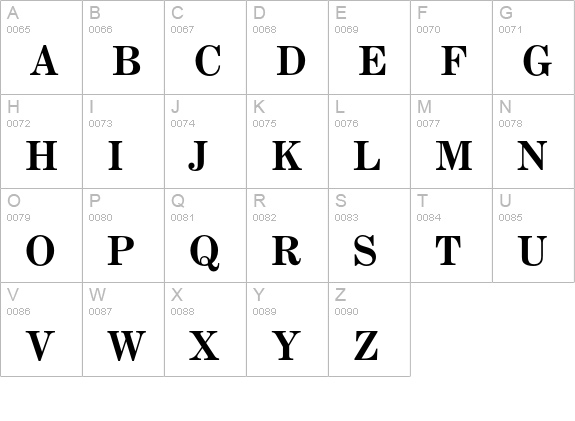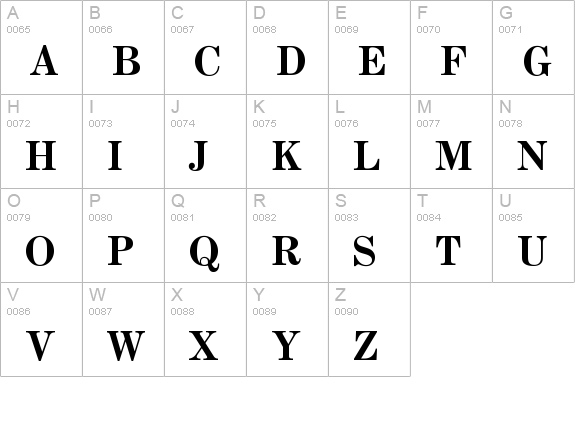
Century Expanded Bold is a strong, high-contrast, extended-width variant in the Century typeface family \xE2\x80\x94 well suited to headlines, attention-grabbing titles, and strong calls-to-action.
Century Expanded Bold is a striking and versatile font that commands attention with its bold and authoritative presence. Its strong, solid letterforms exude confidence and make a bold statement in any design project. Ideal for headlines, titles, and emphasis, Century Expanded Bold is a go-to choice for designers looking to make an impact. The clean and modern aesthetic of Century Expanded Bold ensures readability and legibility, even at smaller sizes. The font's bold weight adds a sense of urgency and importance, making it perfect for conveying messages that demand attention. Whether used in print or digital media, Century Expanded Bold stands out and leaves a lasting impression on the audience. One of the best features of Century Expanded Bold is that it is freely available to download at FontsMarket.com. Designers can easily access this powerful font and incorporate it into their projects without any hassle. With its timeless appeal and bold design, Century Expanded Bold is a must-have font for any designer looking to make a bold statement.